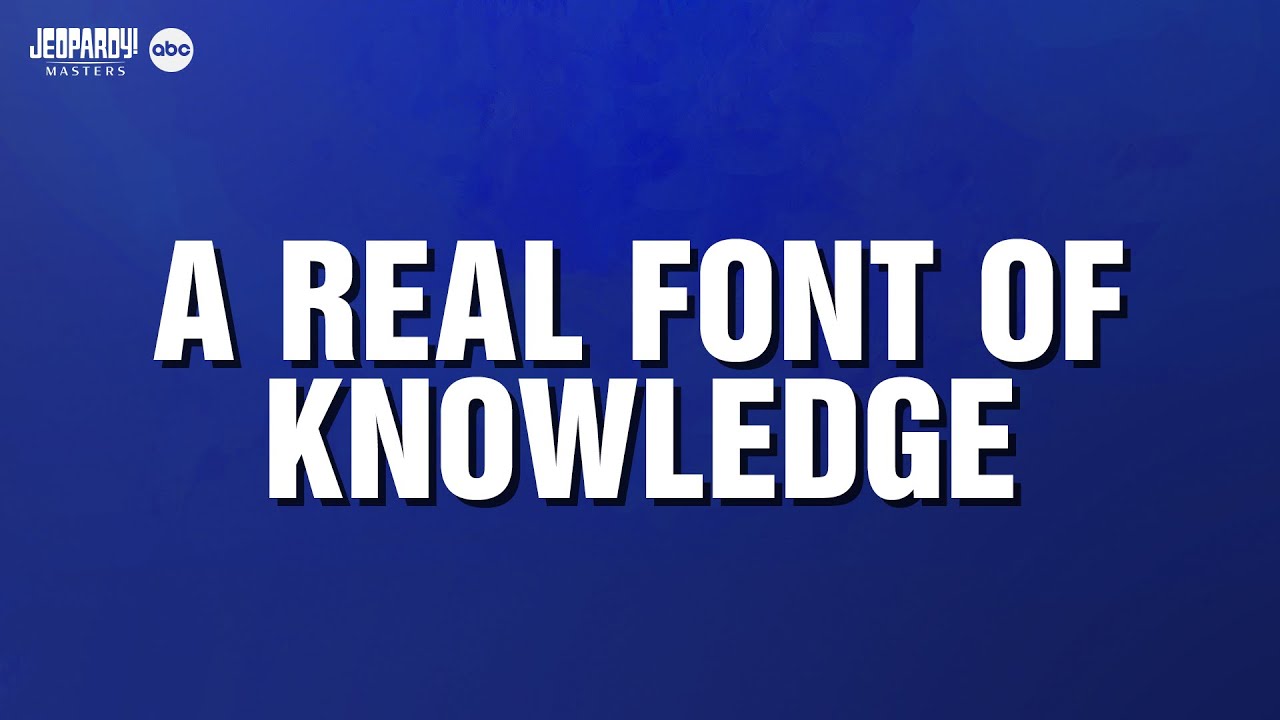
Finally, Jeopardy gets a fonts category
Jeopardy is a hugely popular TV quiz show in the US that turned the quiz format upside down, providing contestants with general knowledge clues in the form of answers rather than asking them direct questions. Participants must identify the person, thing, place or idea the clue describes, phrasing the response as a question.
And NBC recently had a treat for typography fans, delivering a fonts category in the quiz. But how well would you do? See the questions below (and see our guide to the best free fonts and the best font pairings if you need to brush up).
There are five questions in the "real font of knowledge category" that came up on Jeopardy this week. The questions are as follows (watch the video above if you want to check the answers or see below).
1) Stanley Morison co-designed this font with a 3-word name; it debuted in a certain London newspaper on October 3 1932.
2) Last name of 18th-century Italian printer Giambattista, who designed an eponymous font that has a distinct Q.
3) A 2007 documentary tells the story of this font developed in Switzerland in 1957.
4) Messenger is a synonym for this, the industry-standard font for screenplays. it looks like it was typewritten.
5) Vincent Connare designed this font with a 2-word name for word balloons and kids' apps. It has taken on a life of its own.
Answers: 1) What is Times New Roman? 2) What is Bodini? 3) What is Helvetica? 4) What is Courier? 5) What is Comic Sans?